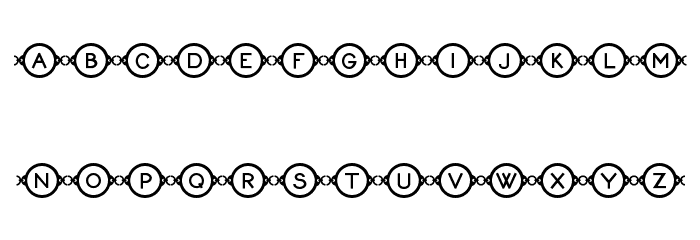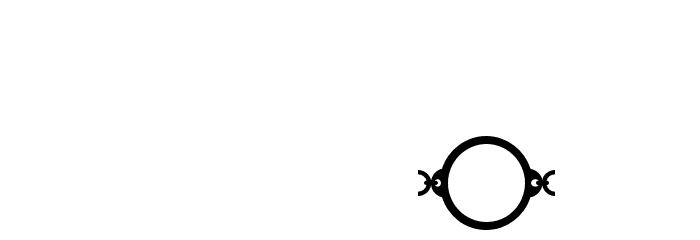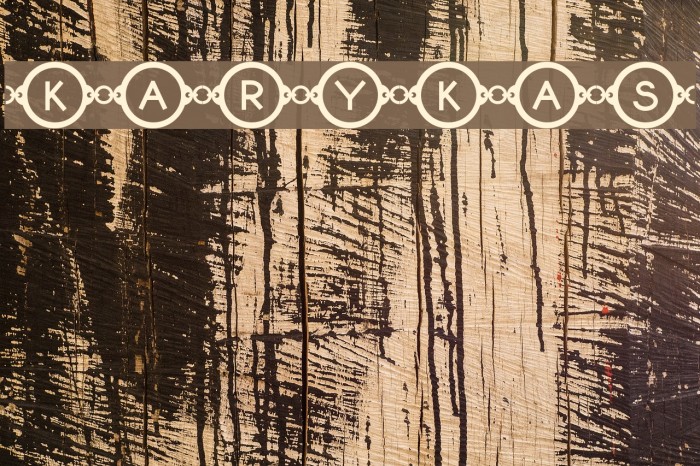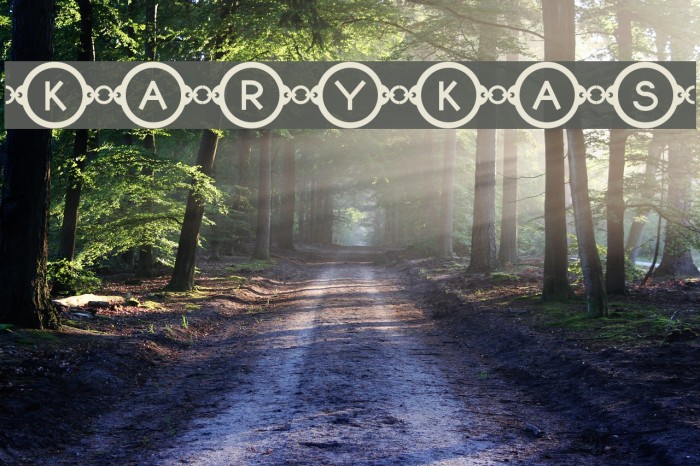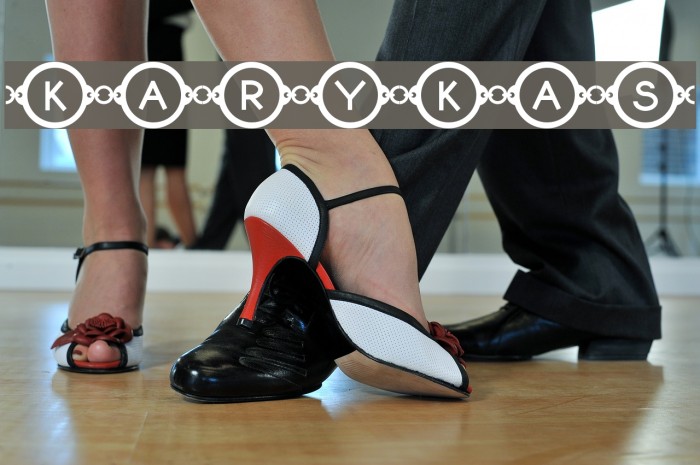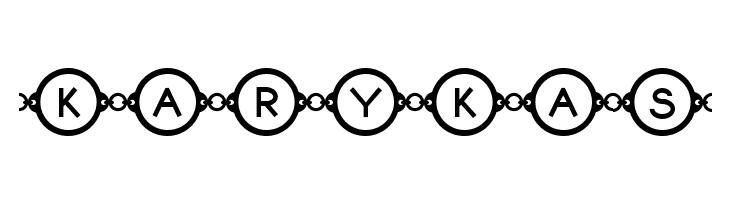
Karykas Font
This decorative font features uppercase letters encased in circular frames, connected by intricate, ornamental links. The design is reminiscent of a chain or jewelry, with each letter standing out clearly within its own circle. The bold, sans-serif style of the letters contrasts with the delicate, decorative elements that link them together. This unique combination of bold typography and intricate design gives the font a distinctive, eye-catching appearance, suitable for creative and artistic projects.
A decorative font with bold letters in circular frames linked by ornamental designs.
- Proposed Projects: Ideal for creative projects such as invitations, posters, branding, and decorative headlines.
- Use Case: Headlines, Logos, Decorative elements